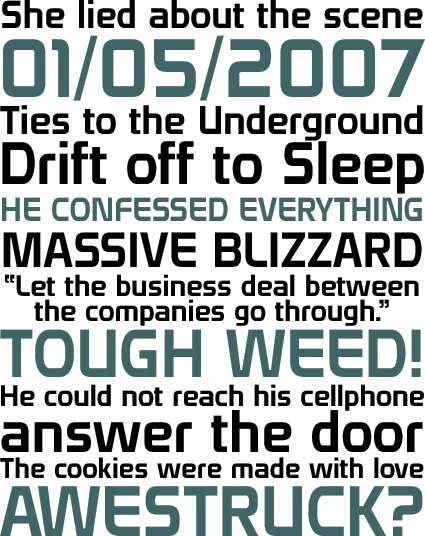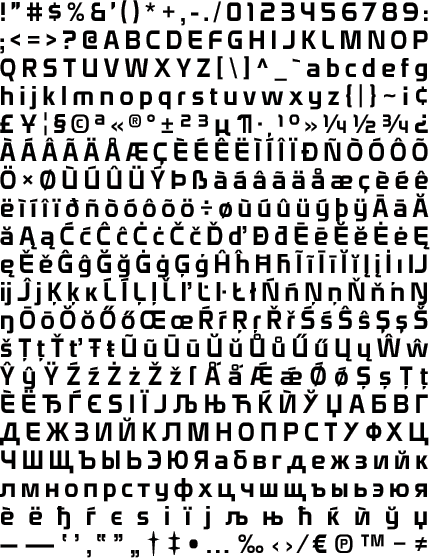
domyouji
Domyouji was designed as a high-tech body copy companion to Korataki. With a nod to Handel Gothic, Domyouji brings the square-sans into the 21st Century.